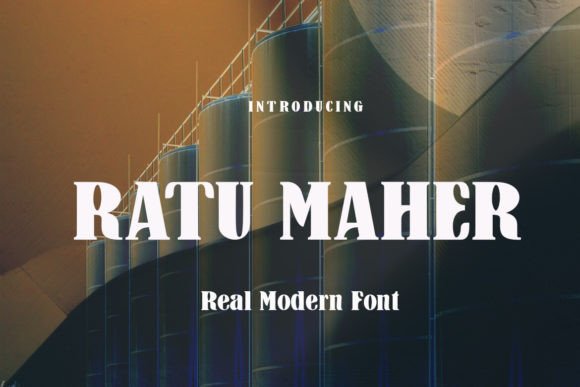
Immerse yourself in the grandeur of Ratu Maher Font, a captivating serif masterpiece that will transform your designs into works of art. Crafted with meticulous precision by WinType, this font exudes elegance and sophistication, making it the ideal choice for creating unforgettable branding and captivating designs that leave a lasting impression.
Ratu Maher is not just a font; it's a gateway to limitless creative possibilities. Its bold and distinctive style commands attention, evoking a sense of luxury and opulence that will elevate your projects to new heights. Whether you're crafting a captivating logo, designing a festive Christmas card, or creating stunning social media graphics, Ratu Maher will effortlessly add a touch of magic to your creations.
Imagine the impact of a logo adorned with Ratu Maher's stately curves, instantly conveying a sense of professionalism and prestige. Picture the allure of a Christmas card adorned with its festive charm, spreading joy and warmth to your loved ones. Or envision the vibrancy of social media posts adorned with Ratu Maher's captivating style, attracting attention and sparking engagement.
With Ratu Maher Font, the possibilities are endless. Its versatility knows no bounds, adapting seamlessly to a myriad of design projects. From elegant wedding invitations to eye-catching posters, from sophisticated brochures to enchanting book covers, Ratu Maher will effortlessly elevate your designs, transforming them into masterpieces that captivate and inspire.
Don't settle for ordinary fonts. Embrace the extraordinary power of Ratu Maher Font and unleash your creativity. Let its timeless beauty and captivating style ignite your imagination and propel your designs to new heights of excellence. Experience the magic of Ratu Maher today and elevate your branding, designs, and projects to unparalleled heights of sophistication and allure.